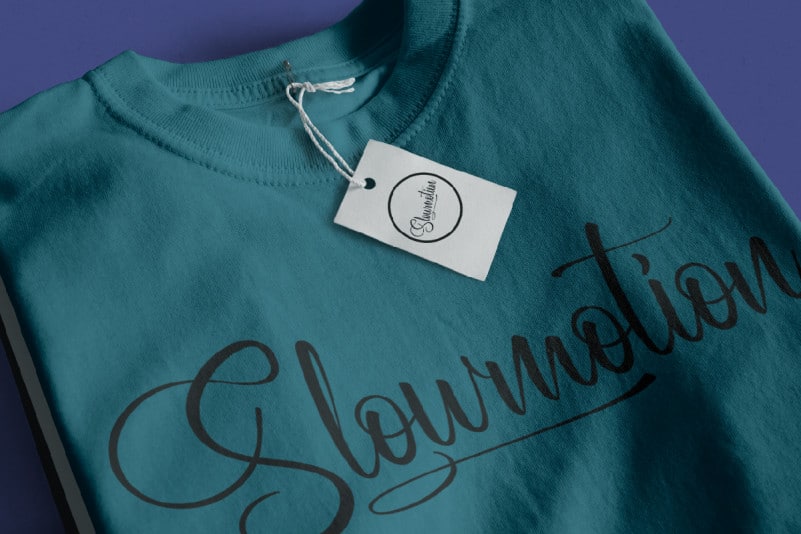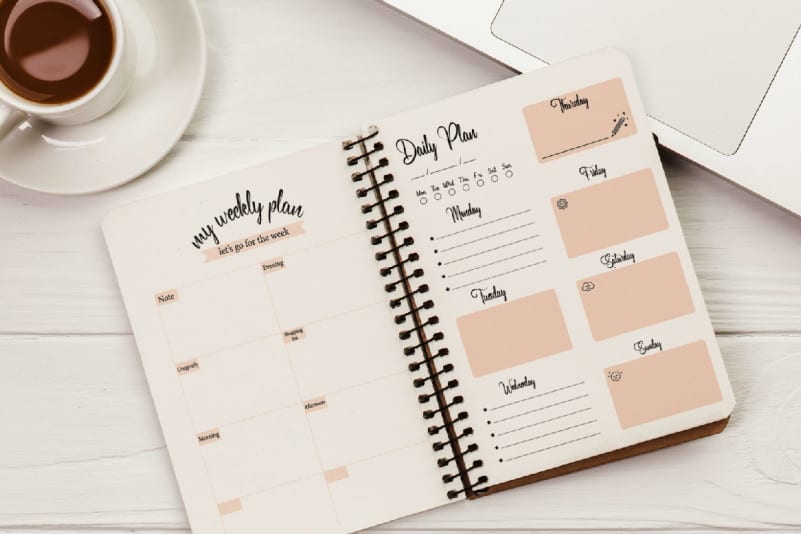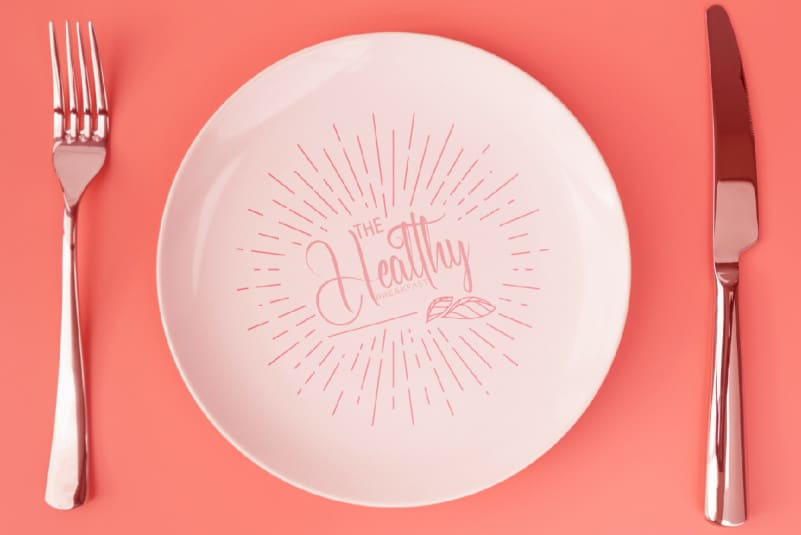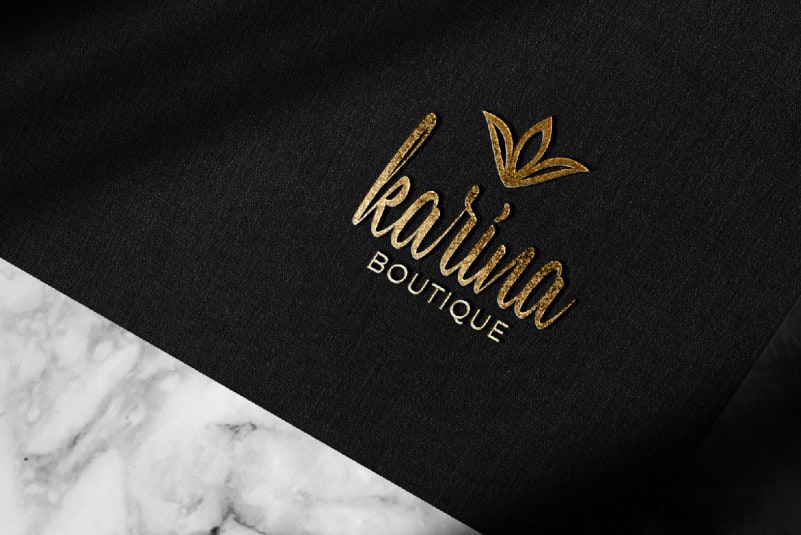
Carnallians Calligraphy Font
Carnallians Calligraphy Font is a calligraphy font which gives the impression of being luxurious, free and sophisticated. This font is crafted carefully in every its single letter so we can make sure it has great looking, inspired by the handwriting of Italian women and ancient manuscripts. Carefully designed to work together in harmony and This one should make your designs instantly stunning and jaw-dropping!
Carnallians Calligraphy Font includes full set of Uppercase and Lowercase Basic Characters, Numerals and Punctuation. Also it contains ligatures to make it flowless characters to perfectly make awesome look that add more aesthetic fonts to perfect your extraordinary project. Many industries will suit this font great including wedding, florist, sales marketing, professional, dentist, real estate, music, videography etc